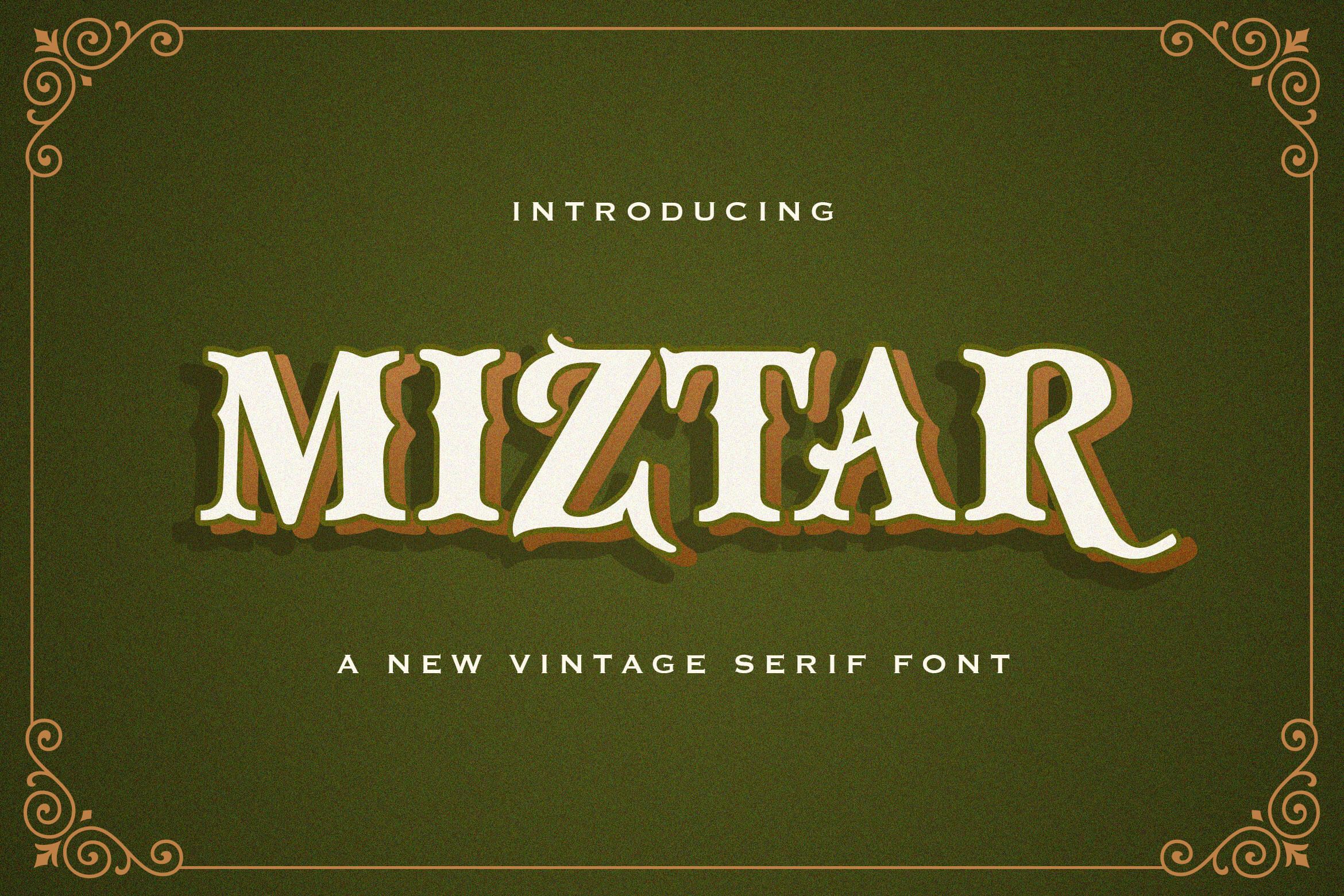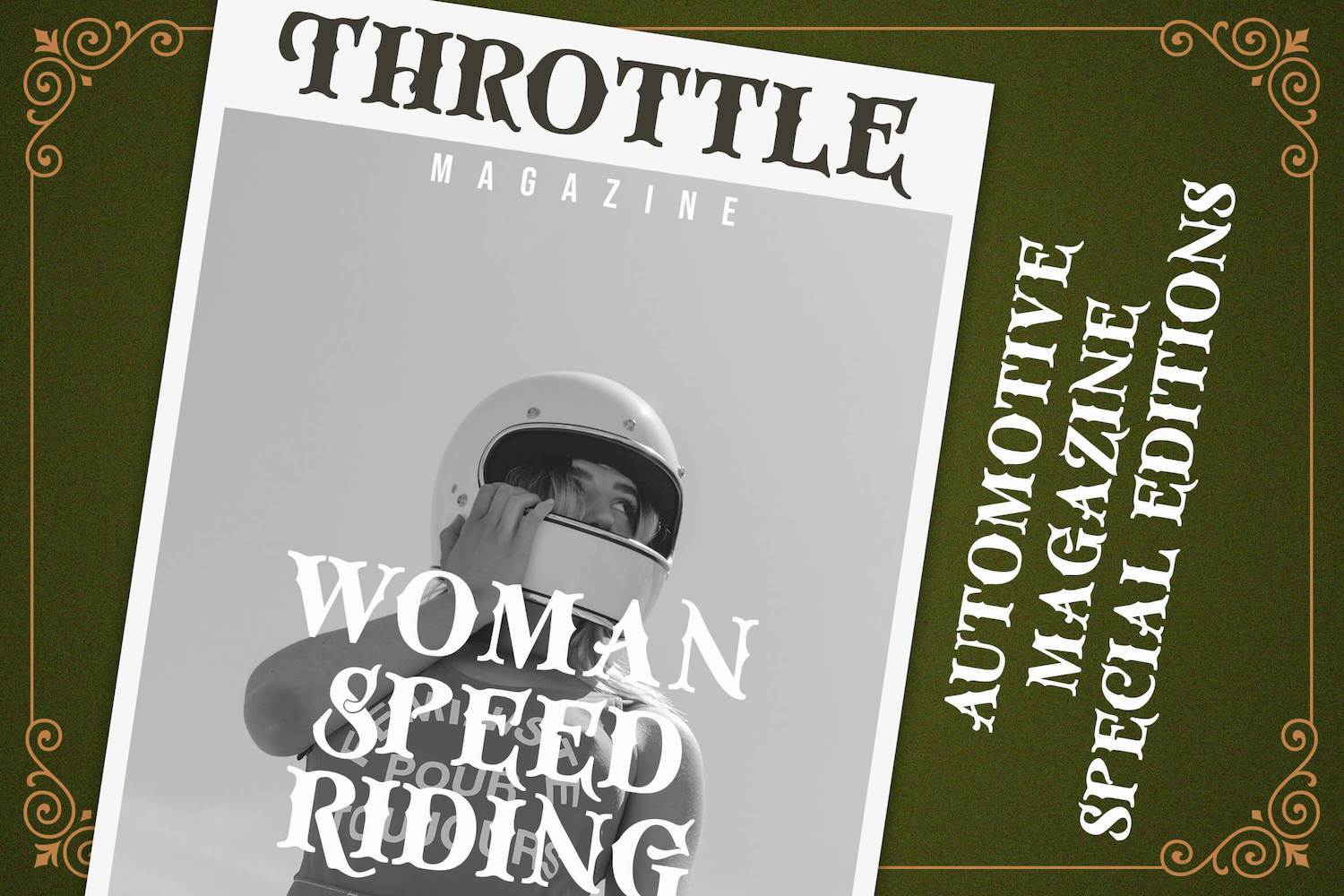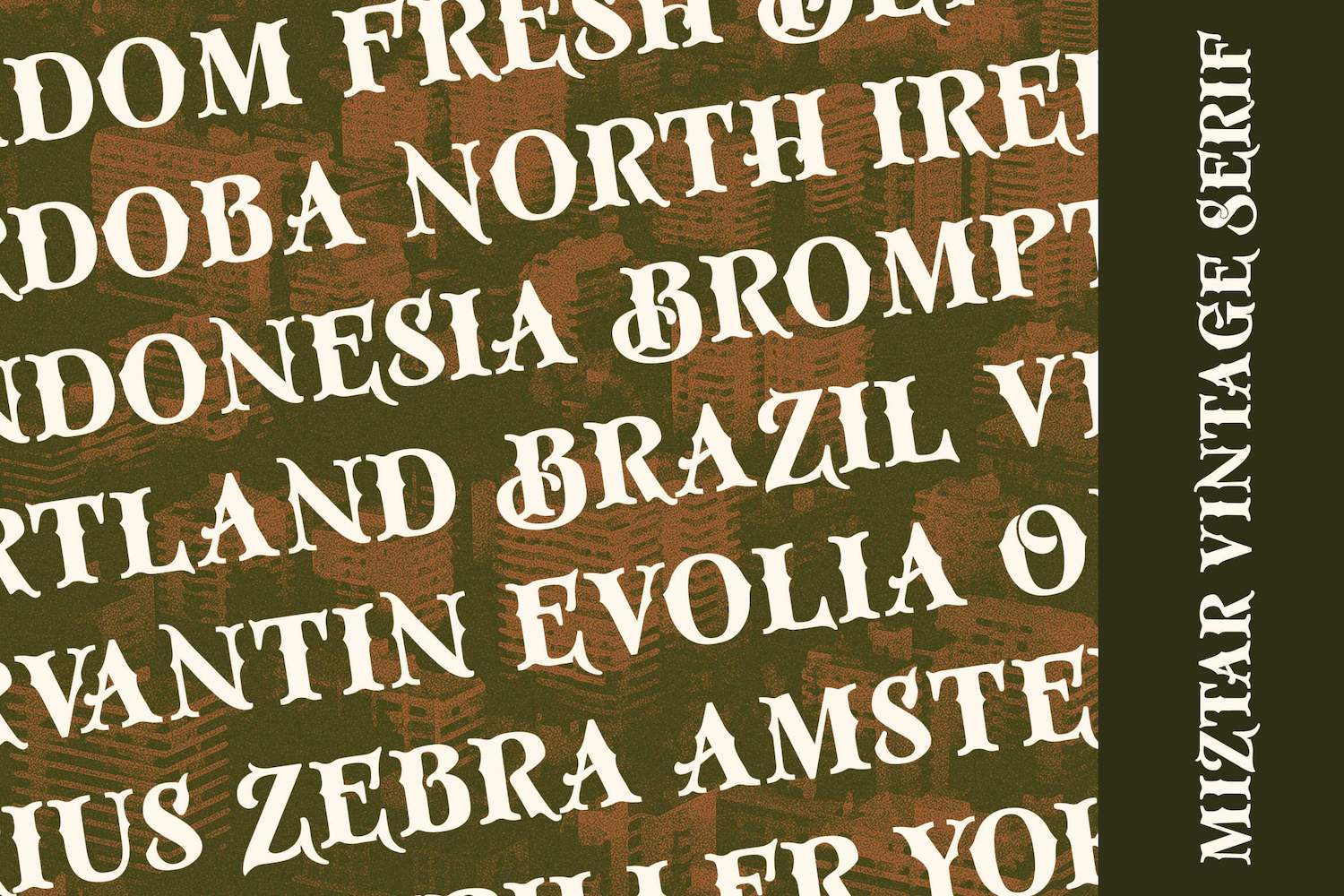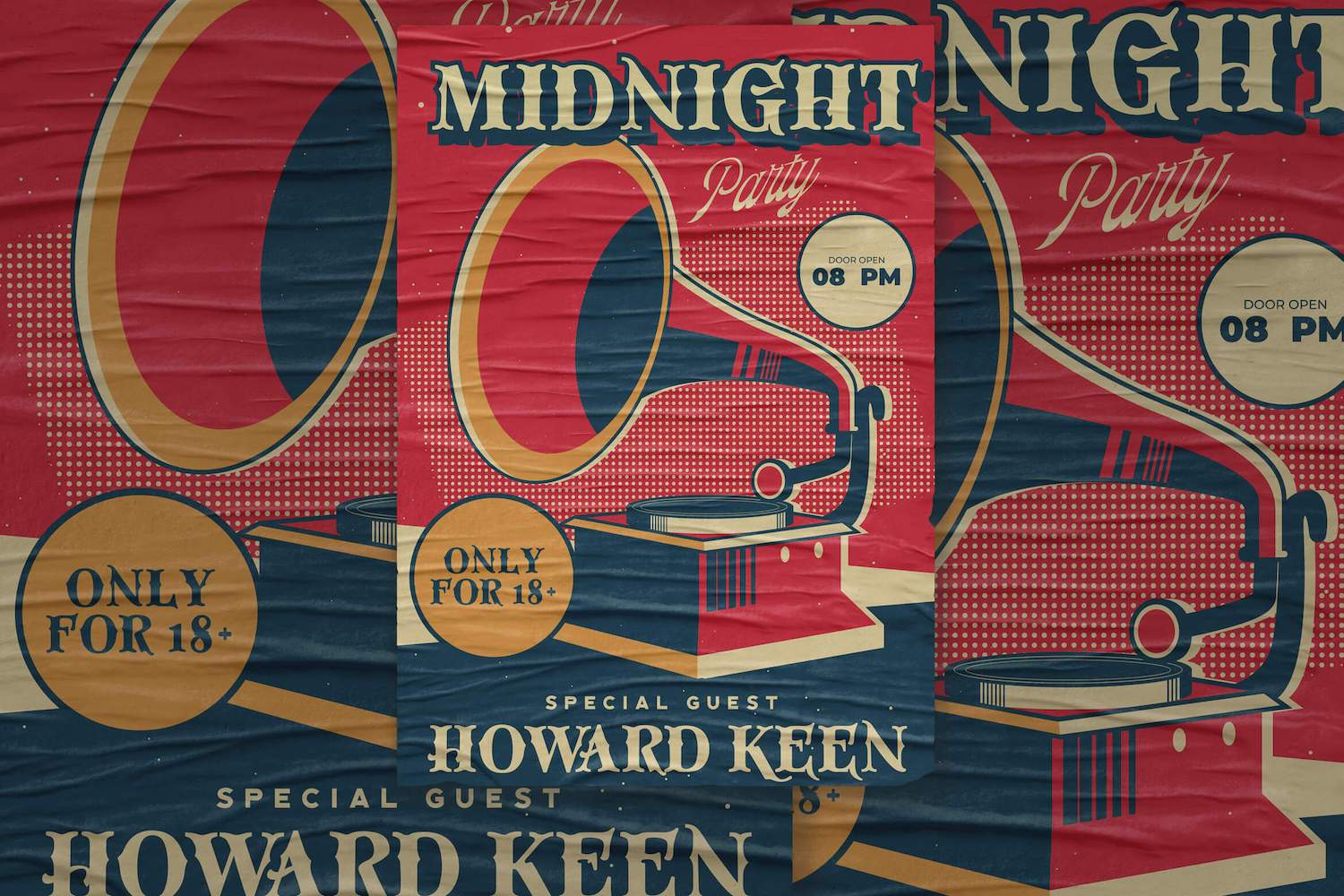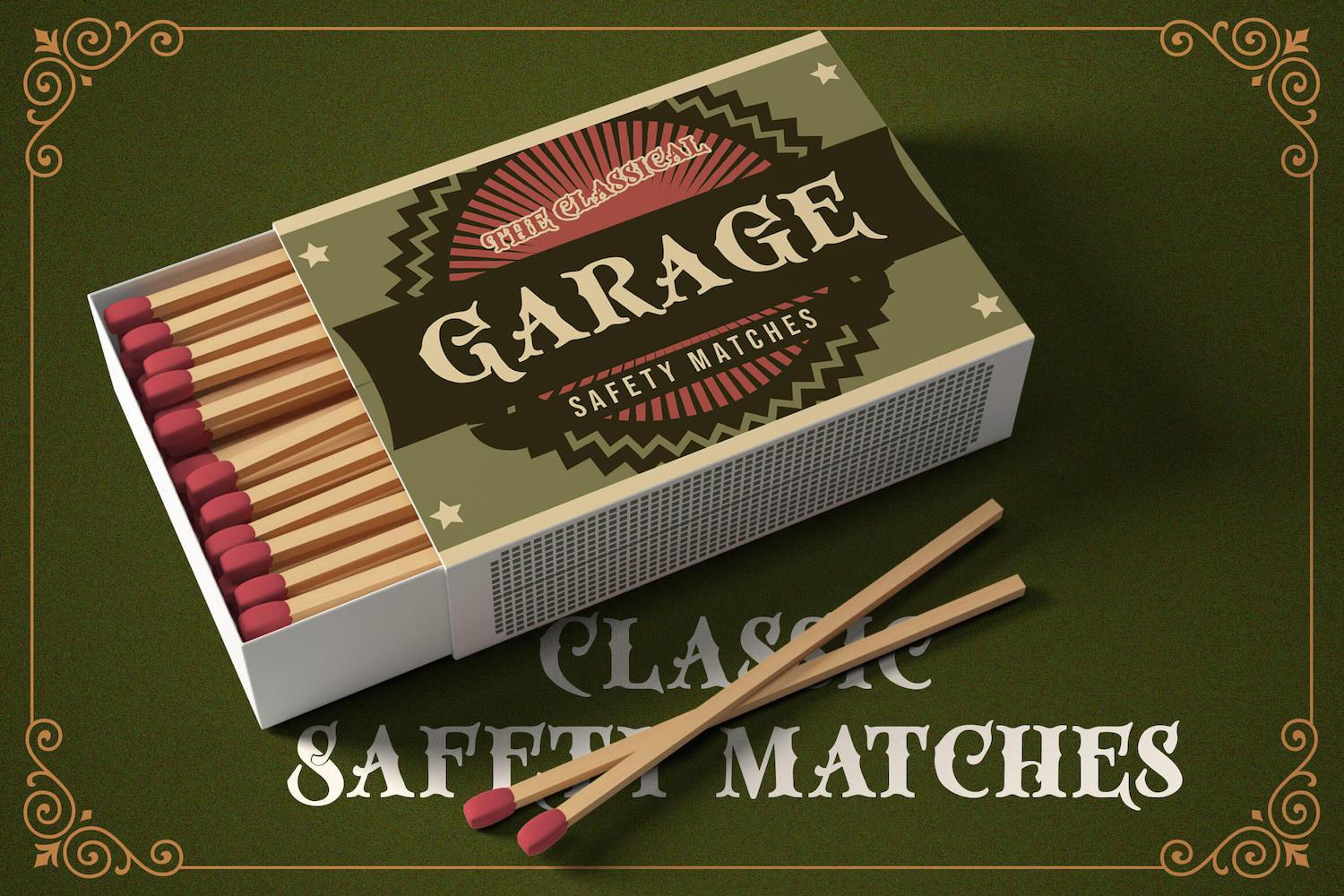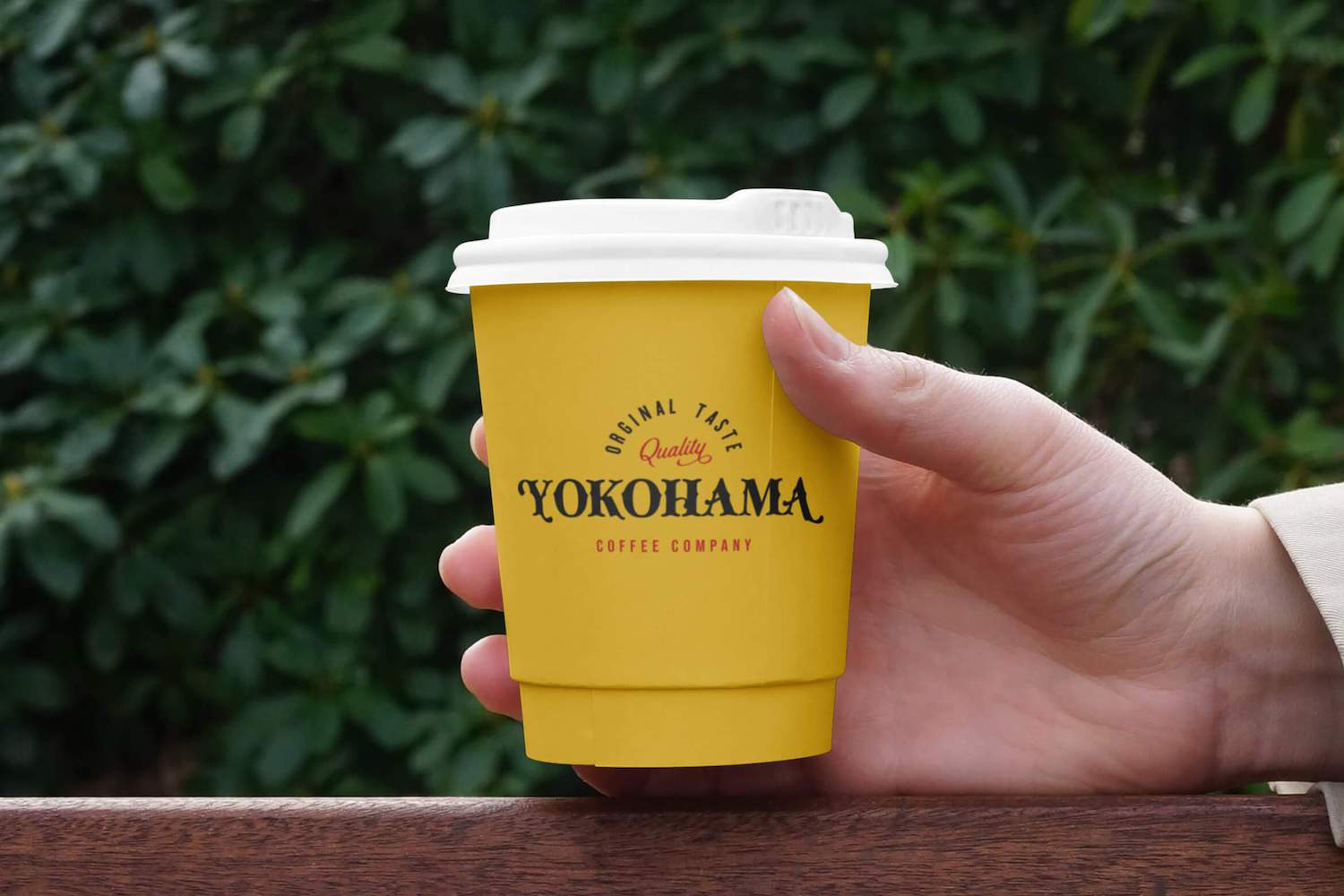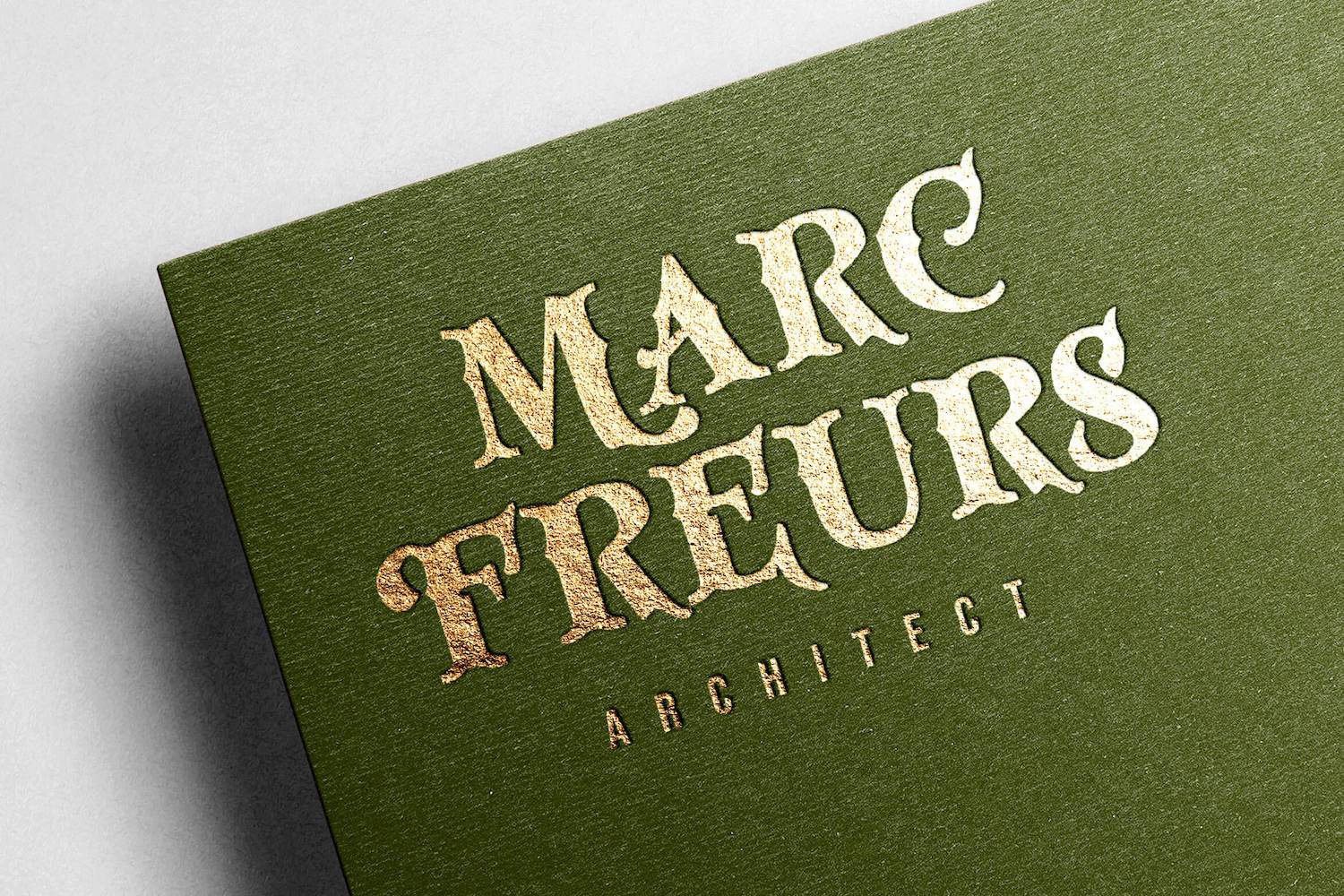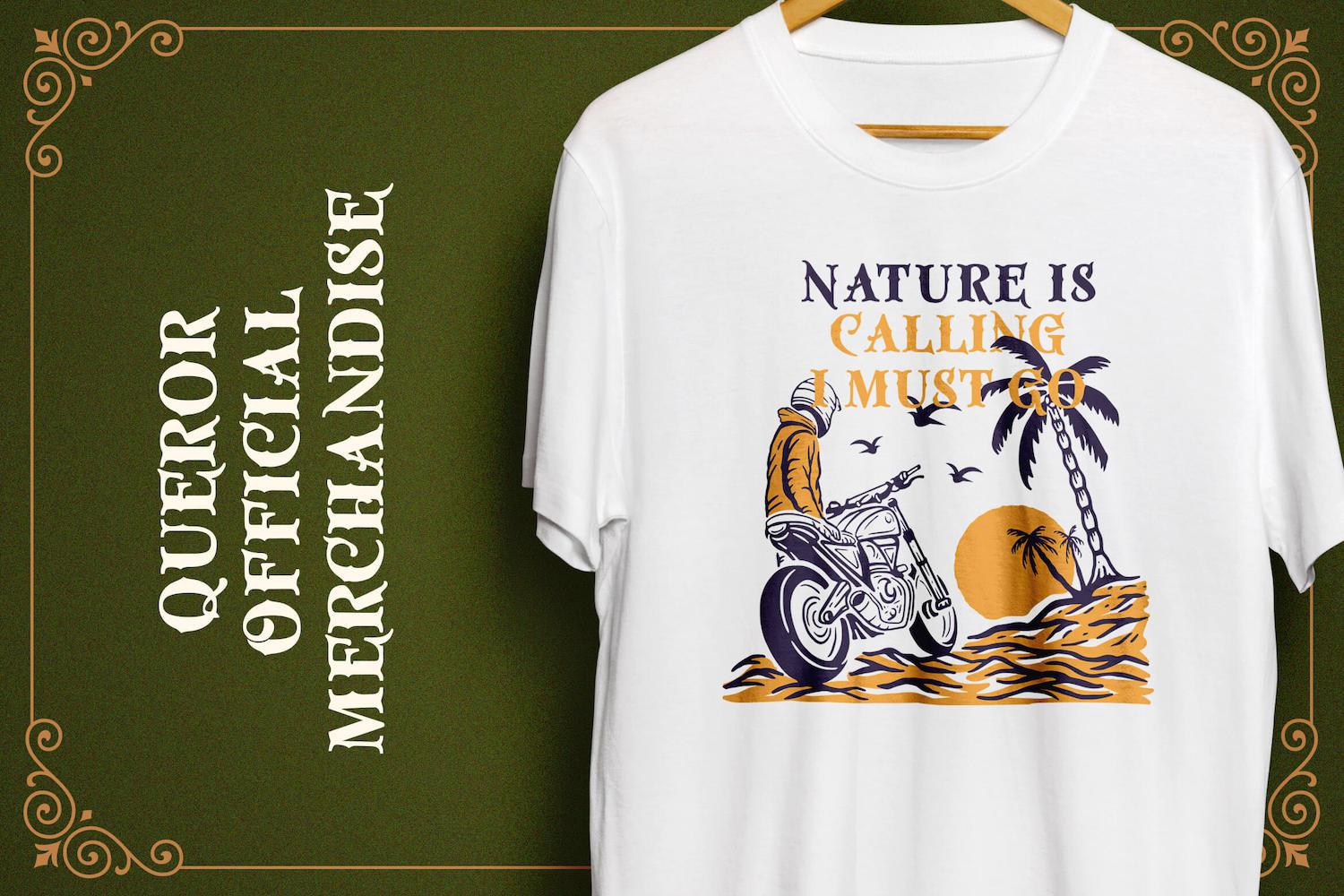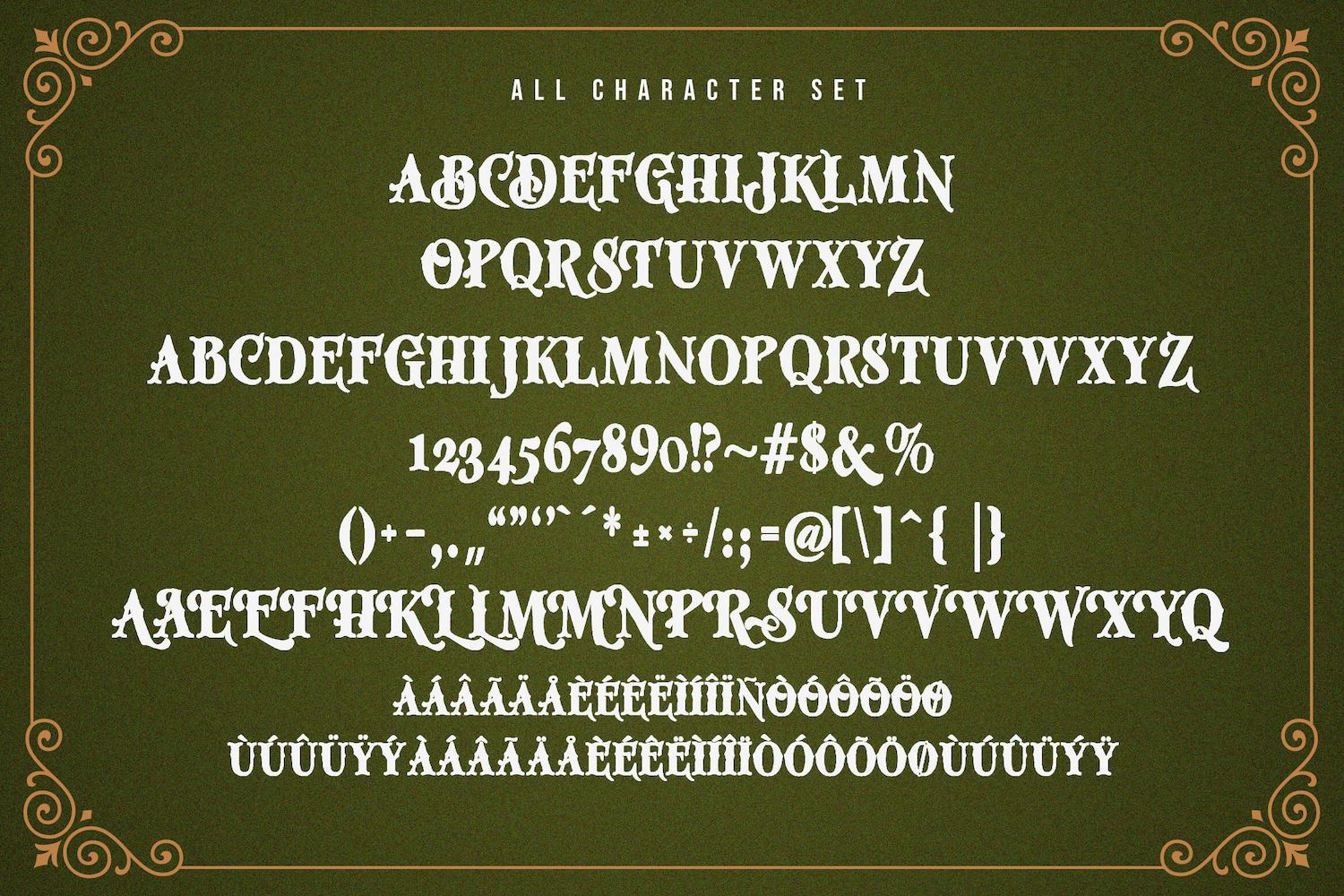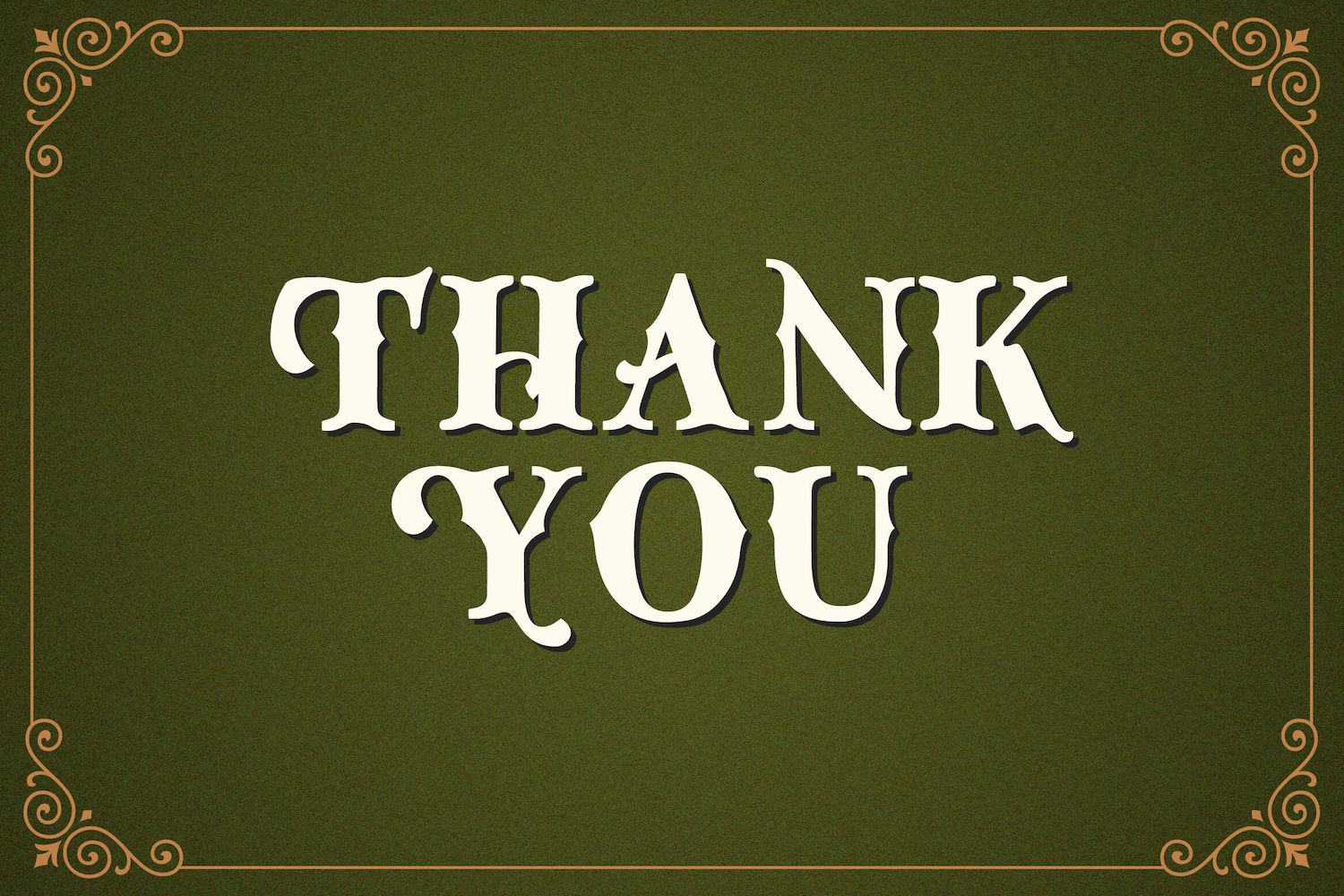
Miztar - Victorian Decorative Font
Introducing Miztar - Victorian Decorative Font
Miztar is a unique, stylish and elegant vintage victorian font. This typeface will look truly outstanding in a wide range of contexts.
Introducing Miztar - Victorian Decorative Font
Miztar is a unique, stylish and elegant vintage victorian font. This typeface will look truly outstanding in a wide range of contexts.